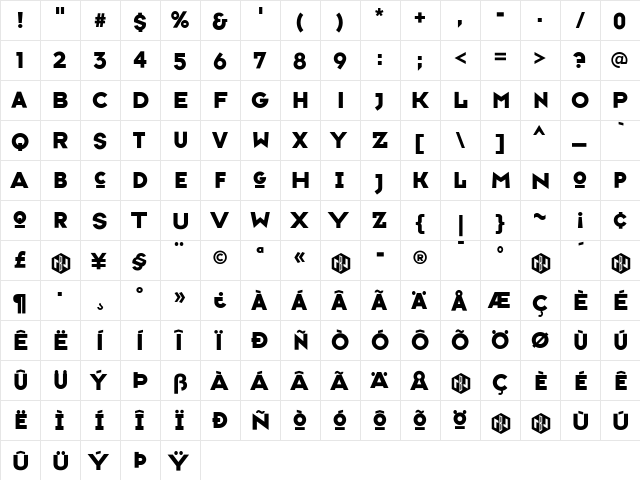
TypefaceSix Medium
TypefaceSix takes a measured approach to typography — its balanced proportions and neutral character make it a reliable workhorse for both digital and print work.